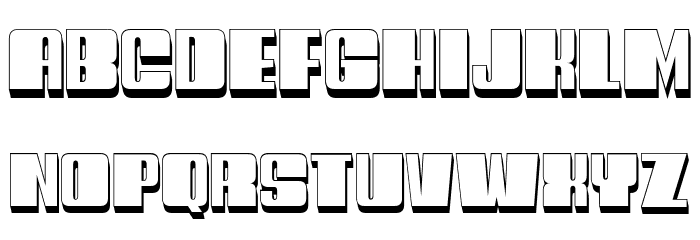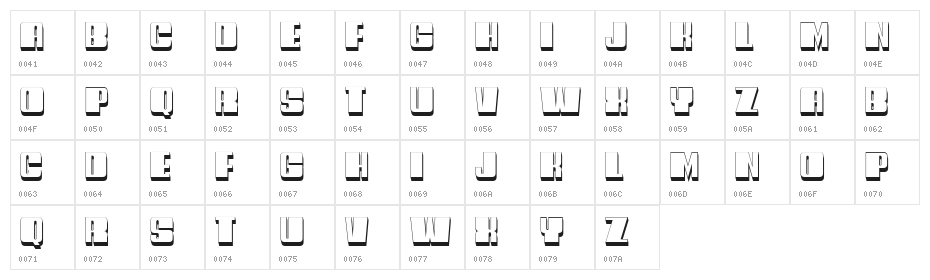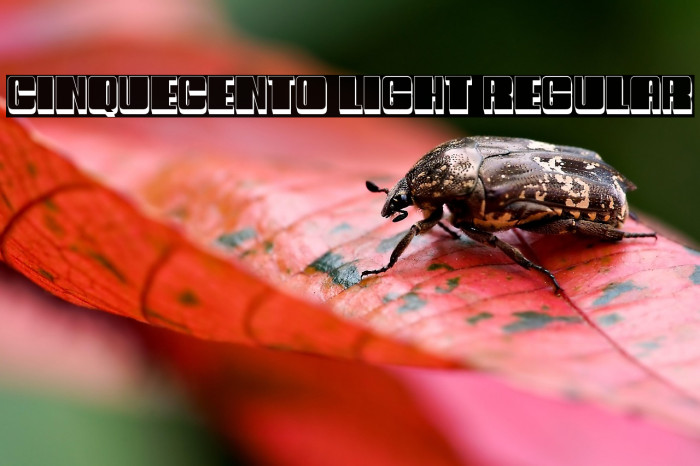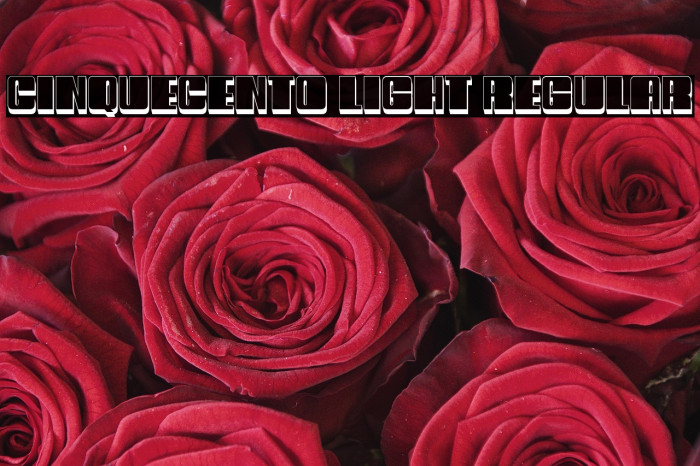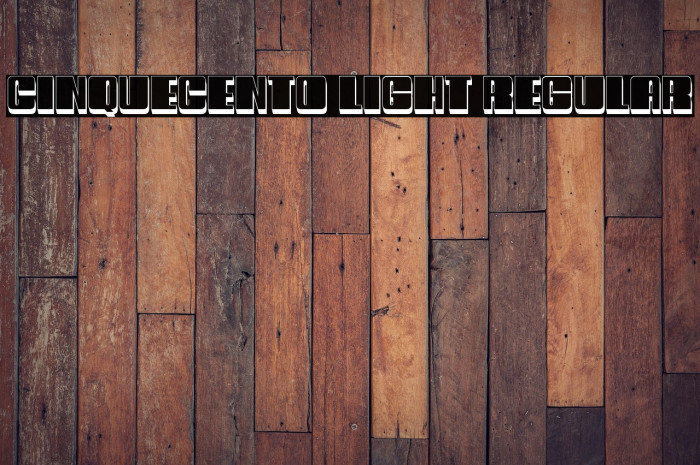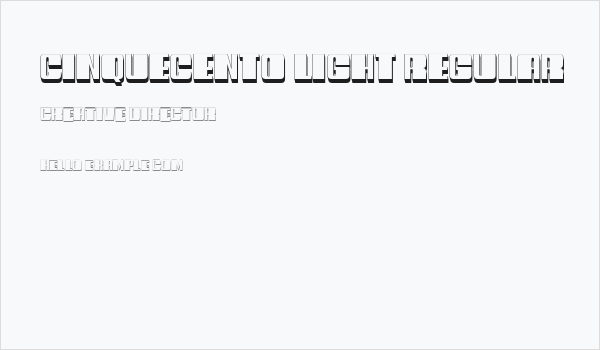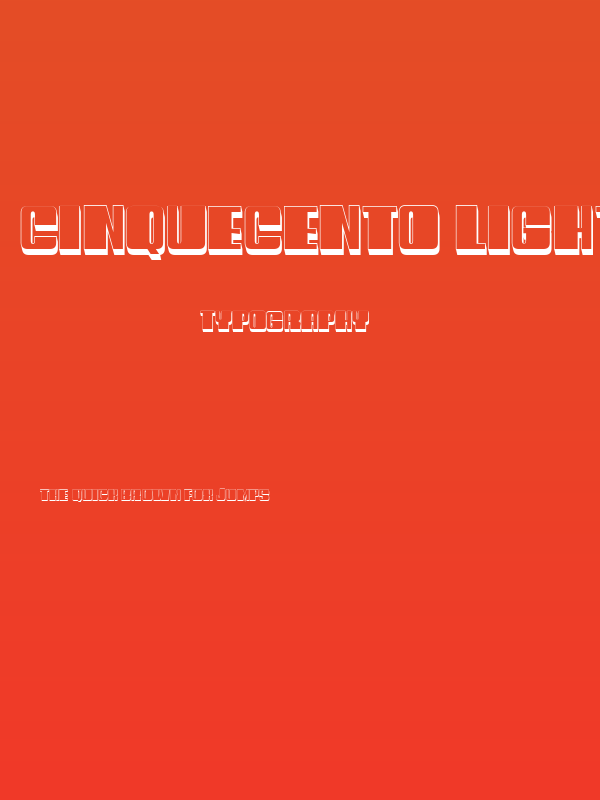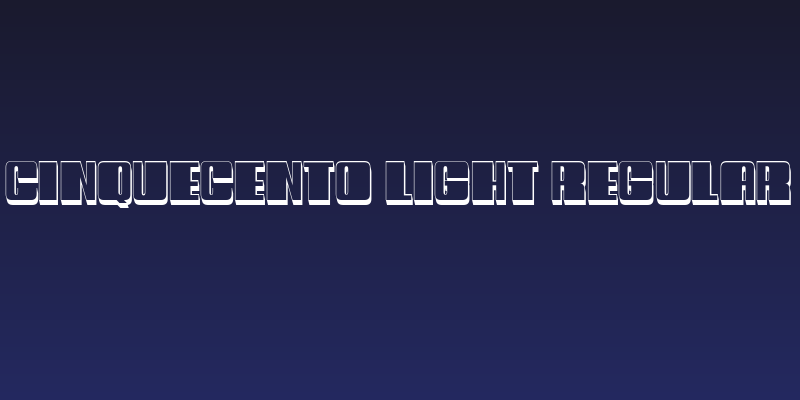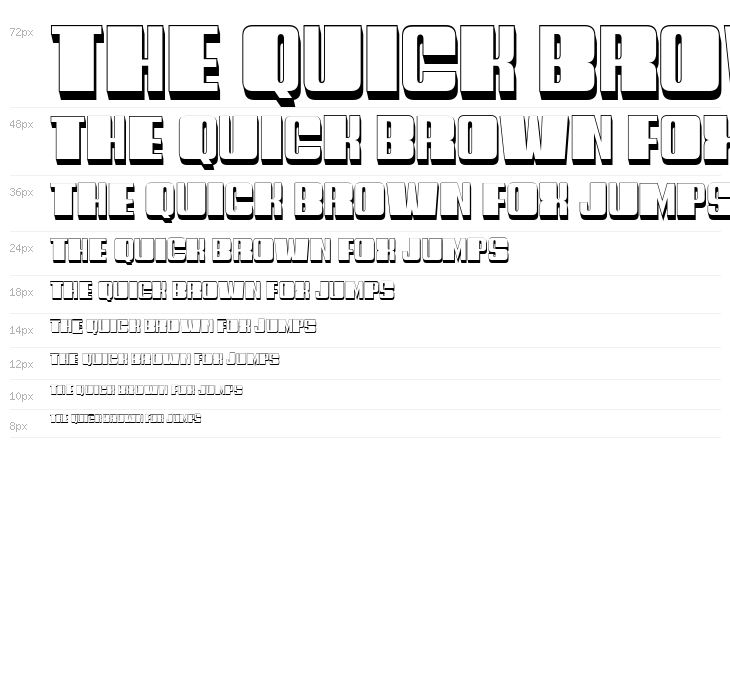
Cinquecento Light Regular Font
Cinquecento Light Regular Description
This font features a bold, three-dimensional style with a strong presence. The characters are blocky and robust, with a shadow effect that gives them depth and a sense of solidity. The uppercase letters are uniform in height, creating a cohesive and structured appearance. The font's design is reminiscent of retro or vintage styles, often seen in signage or posters. Its boldness and unique shadowing make it stand out, ensuring that any text set in this font will capture attention. The overall look is both decorative and impactful, suitable for making a statement.
| Proposed Projects | Ideal for use in posters, signage, branding, and any project requiring a strong, eye-catching typeface. |